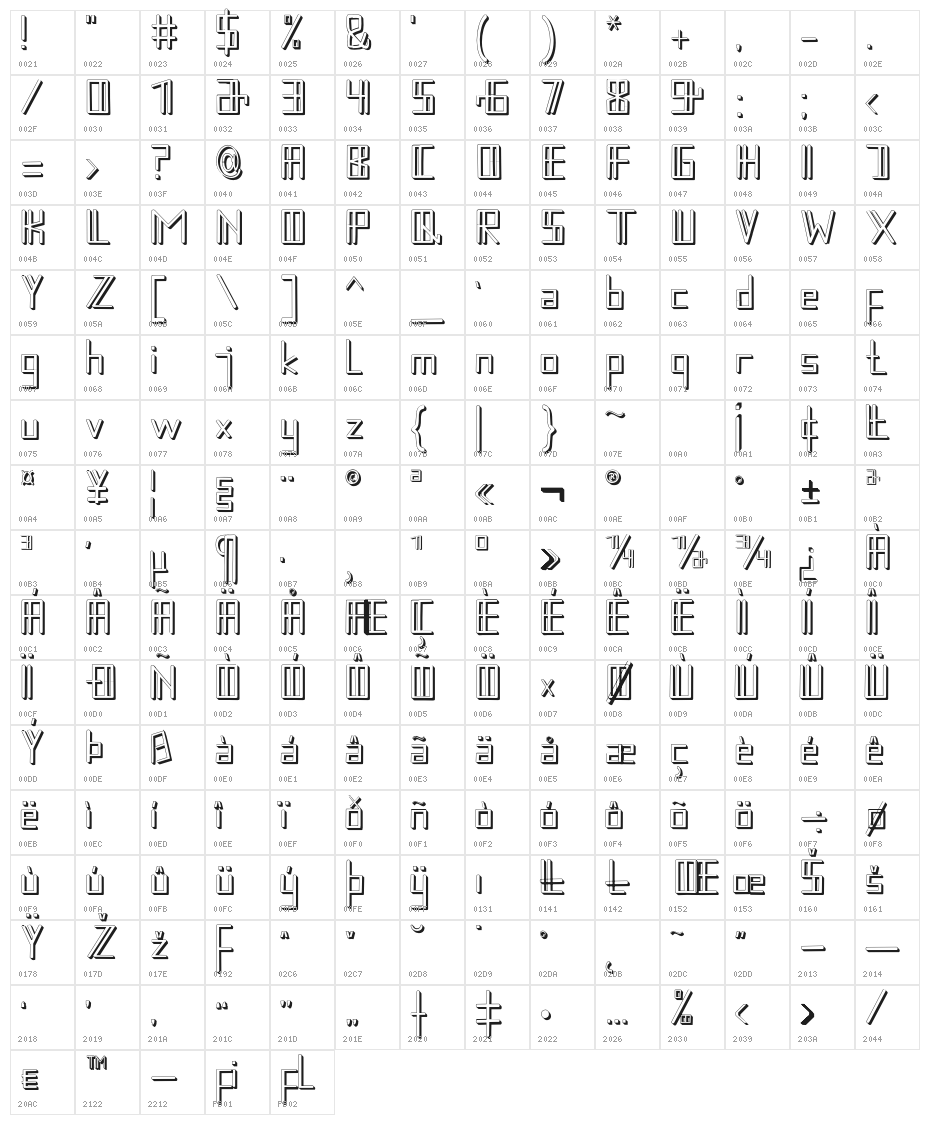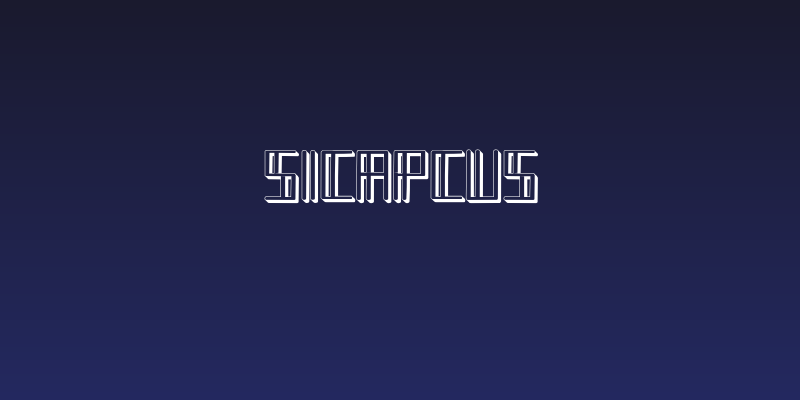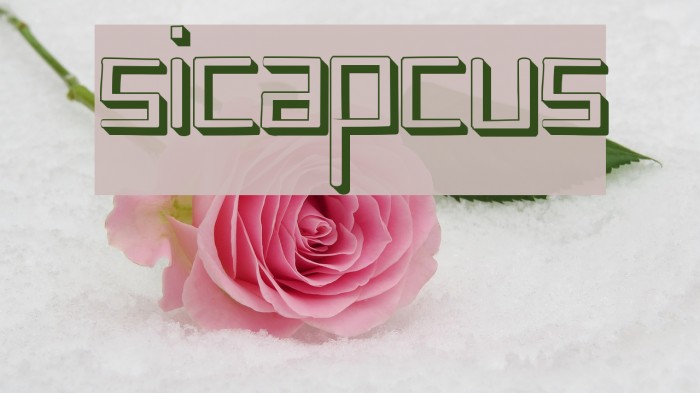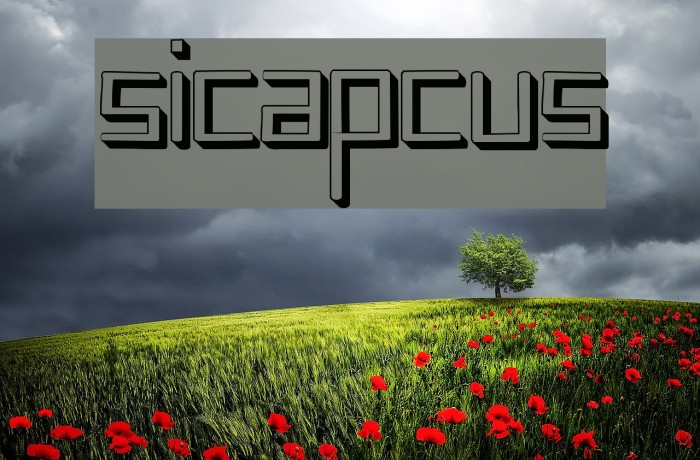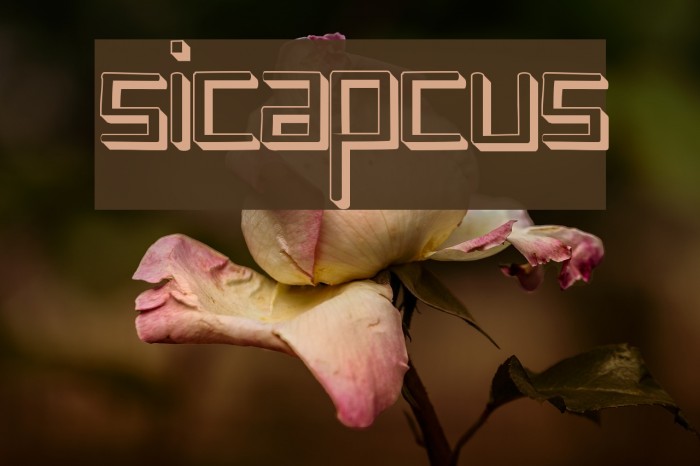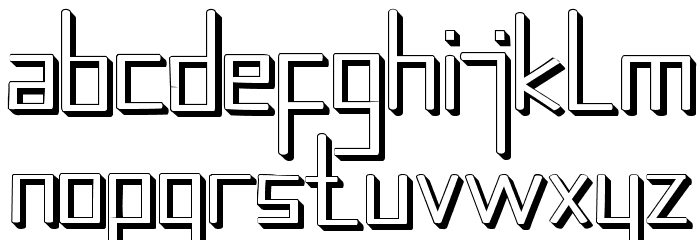
sicapcus Font
sicapcus Description
This font features a bold, geometric design with a three-dimensional effect, achieved through the use of parallel lines and shadowing. The uppercase letters are structured with sharp angles and clean lines, giving a futuristic and industrial feel. The lowercase letters maintain the same geometric style, ensuring consistency across the typeface. Numbers and special characters are designed to match the overall aesthetic, with a focus on symmetry and balance. The font's unique style makes it stand out, ideal for projects that require a modern and edgy look.